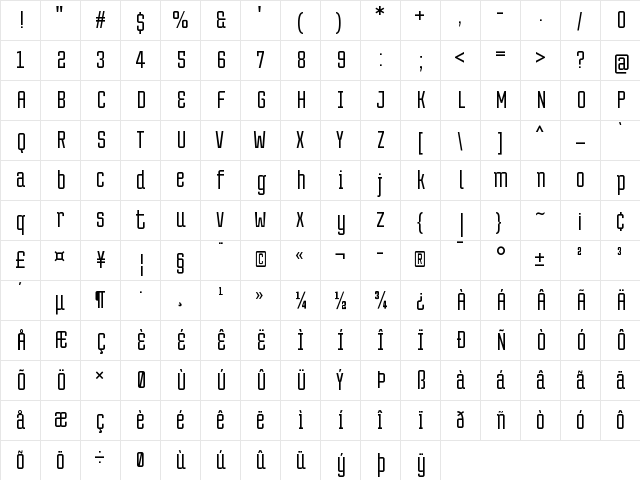
Tentram Regular
| Foundry | 7NTypes |
| Designer | Situjuh Nazara |
Design Context for Tentram Typeface
Tentram is a composed and adaptable typeface that performs quietly and consistently across a wide range of design contexts.